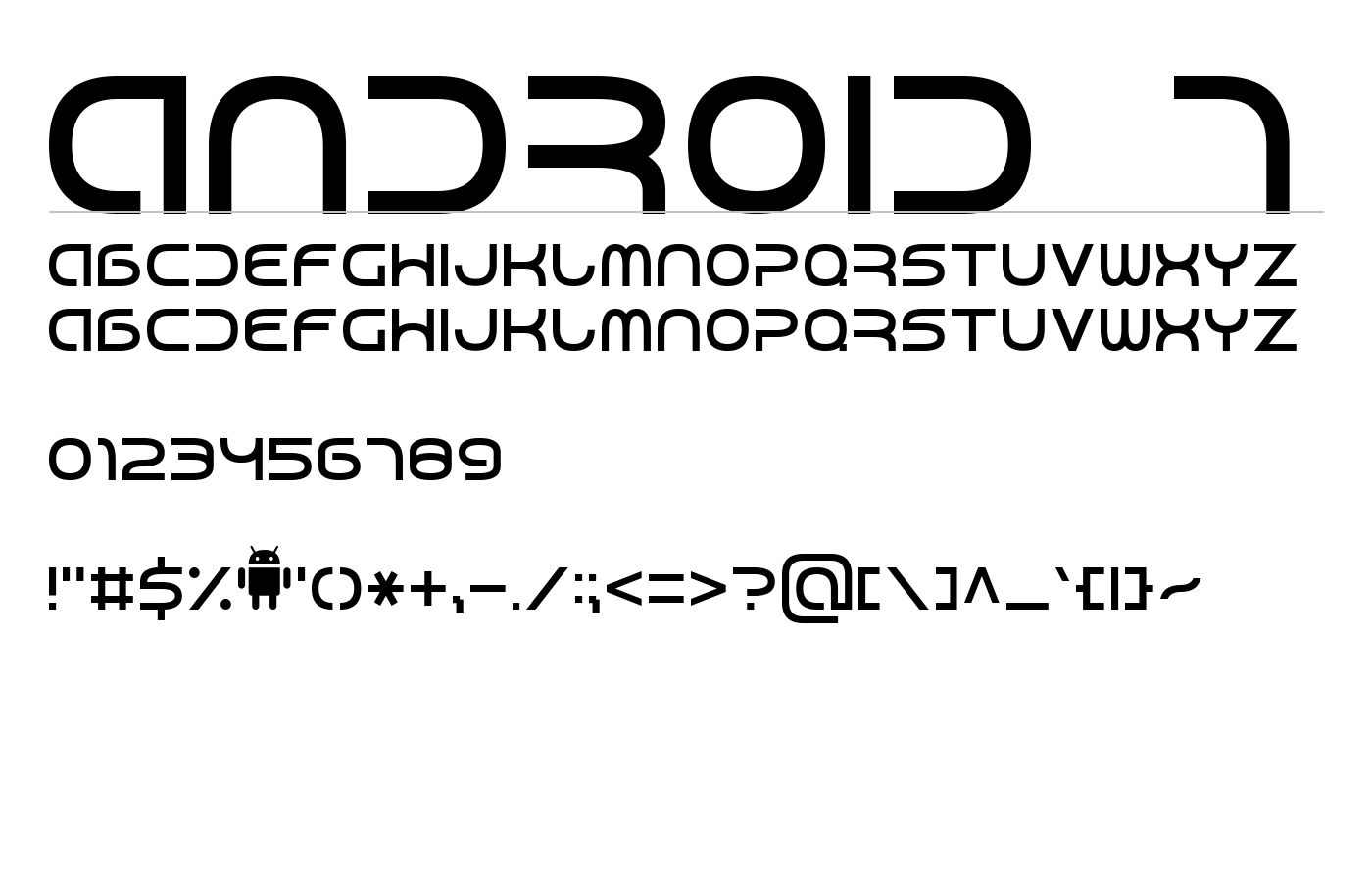
Android 7 Font is a sleek, futuristic sans serif typeface that features clean, geometric forms and a medium weight for clear readability. Its distinctive curves and unique letter shapes give it a modern, tech-savvy feel, making it ideal for digital interfaces, branding, and headlines where a contemporary and innovative look is desired. This font works well for technology-related projects that need a fresh, stylish, and approachable aesthetic.
Android 7 Font
About Android 7 Font
| Font family | Android 7 Font |
| Designer | Sizenko Alexander |